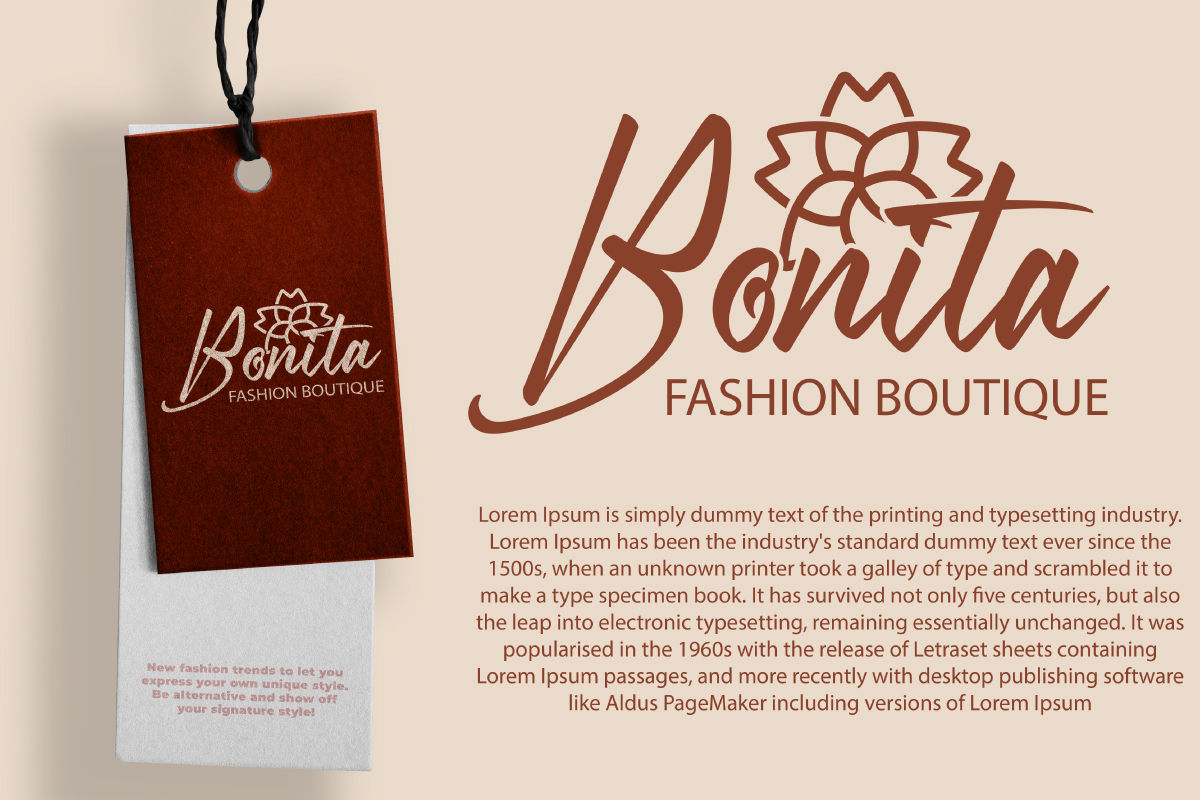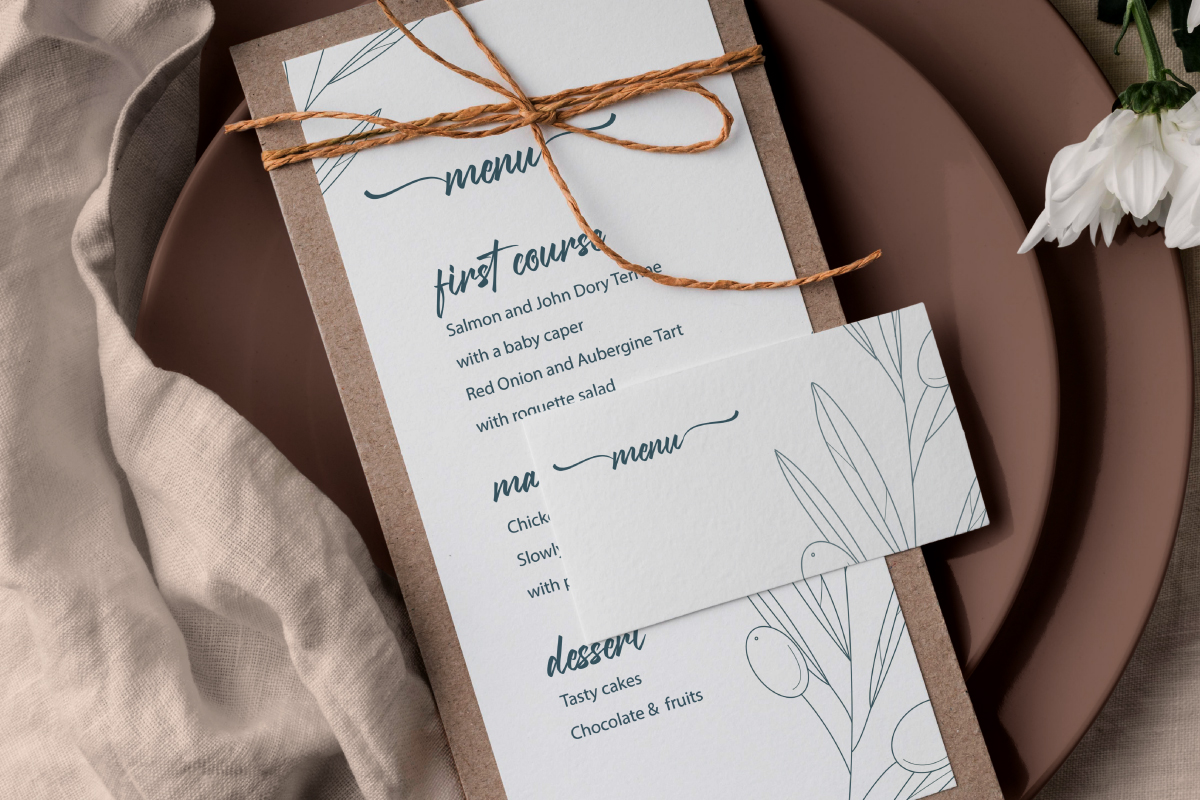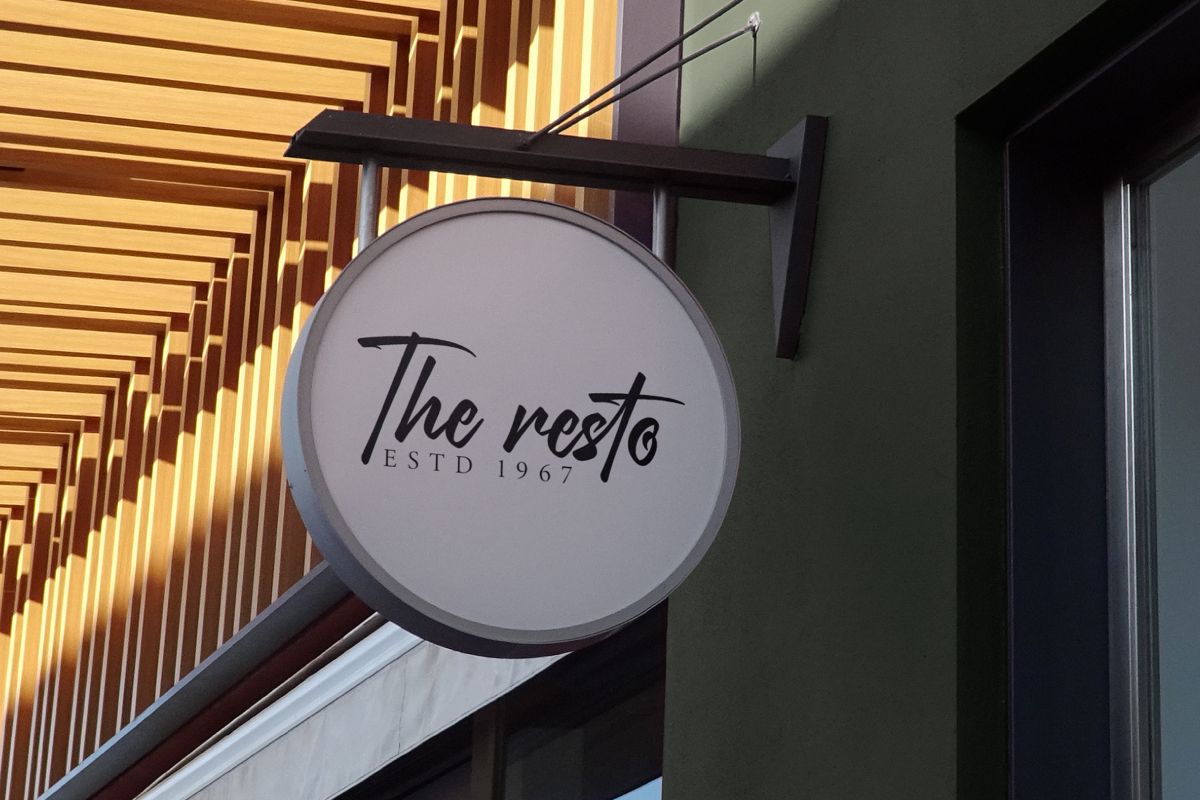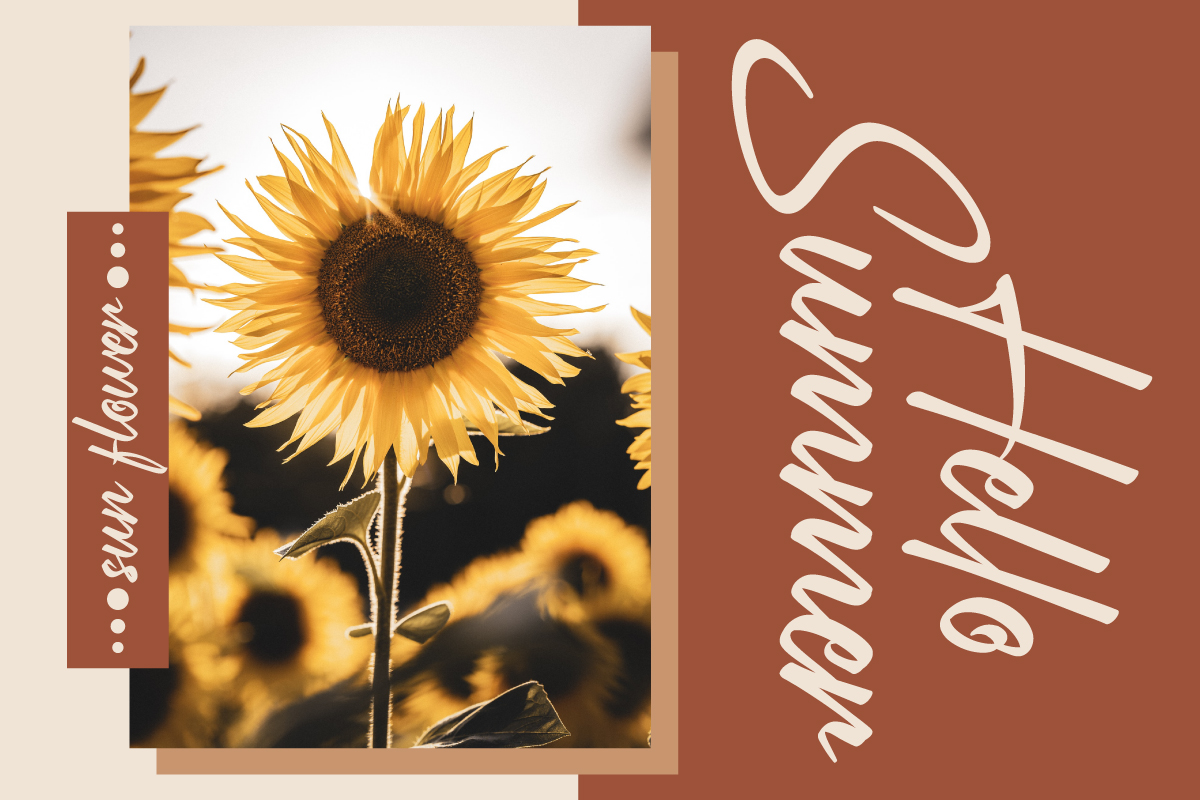
Johnstown Font
Johnstown Script Font
This is a beautiful handwriting calligraphy font. It has unique looks that are chic, modern, elegant, luxury, lettering and sophisticated handwritten font.